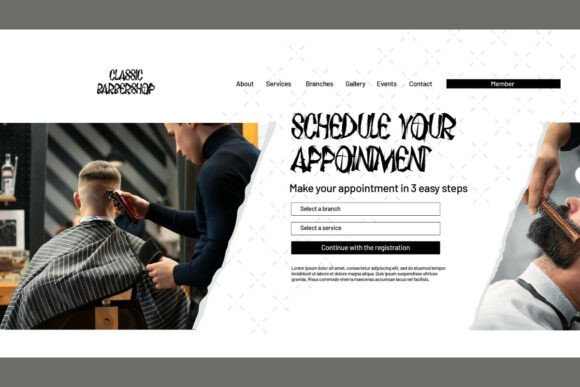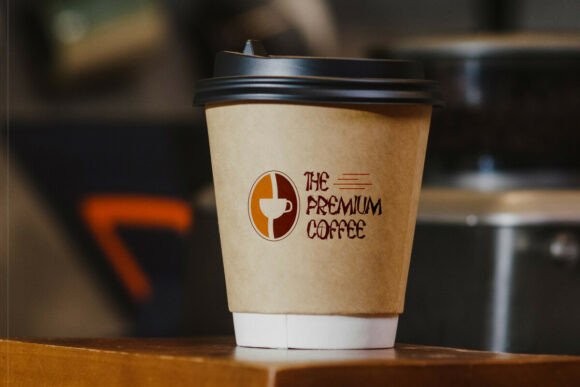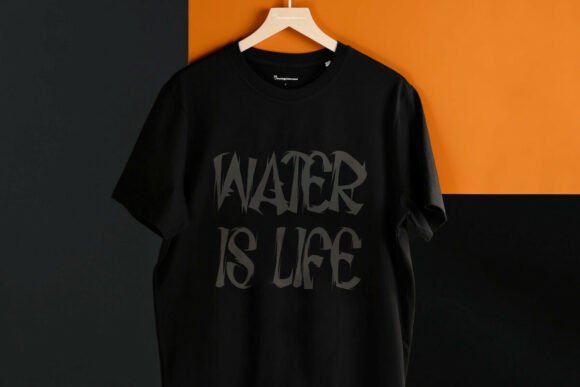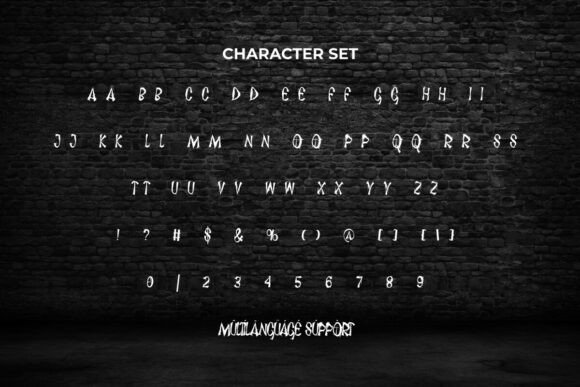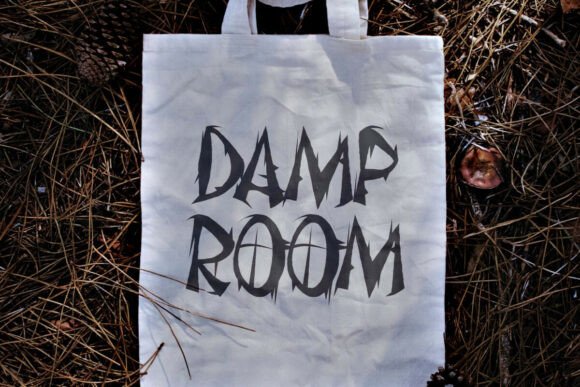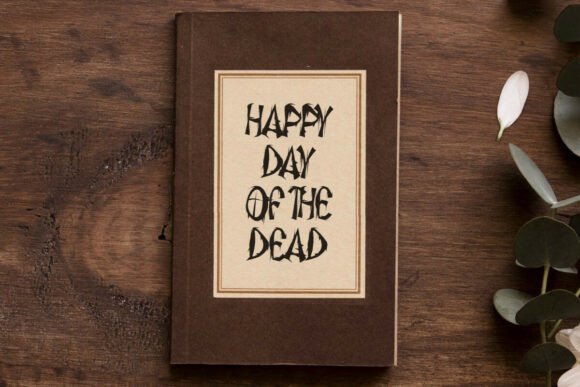
Unleash the Horror: Introducing the Damp Room Font
Are you looking for a font that exudes fear, intensity, and a gritty, underground aesthetic? Look no further than the Damp Room Font, an aggressive, horror-themed display font that’s sure to send chills down the spine. With its sharp, distressed edges and distinctly eerie, menacing character, this unique typeface is the perfect choice for projects that need to convey a raw, chaotic energy.
The Ultimate Font for Horror and Dark Energy
The Damp Room font is designed to capture the essence of horror and darkness, making it instantly recognizable and intensely evocative. Its jagged lines and fragmented letterforms give it a chaotic, unpredictable feel that’s sure to grab attention. Whether you’re creating a movie poster, heavy metal album cover, or video game title, this font is guaranteed to deliver a chilling, unforgettable visual impact.
Key Features of the Damp Room Font
- Aggressive and menacing design: The Damp Room font features sharp, distressed edges and a bold, imposing character that’s perfect for creating a sense of fear or unease.
- Unique and expressive glyphs: Each letterform in the Damp Room font is carefully crafted to convey a sense of chaos and unpredictability, making it perfect for projects that need to stand out.
- Highly versatile: Whether you’re creating a movie poster, album cover, or video game title, the Damp Room font is the perfect choice for any project that needs a bold, attention-grabbing font.
- Instantly recognizable: The Damp Room font is designed to be instantly recognizable, making it perfect for projects that need to convey a sense of horror or darkness.
Use Cases for the Damp Room Font
The Damp Room font is perfect for a wide range of projects, including:
- Movie posters: Create a chilling movie poster that sets the tone for a horror movie with the Damp Room font.
- Heavy metal album covers: Give your heavy metal album cover a bold, aggressive look with the Damp Room font.
- Video game titles: Create a title screen that exudes fear and intensity with the Damp Room font.
- Any project that needs a dark, gritty aesthetic: Whether you’re creating a logo, brochure, or website, the Damp Room font is perfect for any project that needs a bold, attention-grabbing font.
Why Choose the Damp Room Font?
There are many fonts to choose from, but the Damp Room font stands out for its unique, aggressive design and highly expressive glyphs. Here are just a few reasons why you should choose the Damp Room font for your next project:
- Unforgettable visual impact: The Damp Room font is guaranteed to deliver a chilling, unforgettable visual impact that will leave a lasting impression on your audience.
- Perfect for horror and dark energy projects: If you’re creating a project that needs to convey fear, intensity, or a gritty, underground aesthetic, the Damp Room font is the perfect choice.
- Highly versatile: The Damp Room font can be used for a wide range of projects, from movie posters to heavy metal album covers.
In conclusion, the Damp Room font is the ultimate choice for projects that need to convey fear, intensity, or a gritty, underground aesthetic. With its sharp, distressed edges and distinctly eerie, menacing character, this unique typeface is sure to deliver a chilling, unforgettable visual impact. Whether you’re a designer, crafter, or simply someone looking for a bold, attention-grabbing font, the Damp Room font is the perfect choice. So why wait? Unleash the horror and download the Damp Room font today!